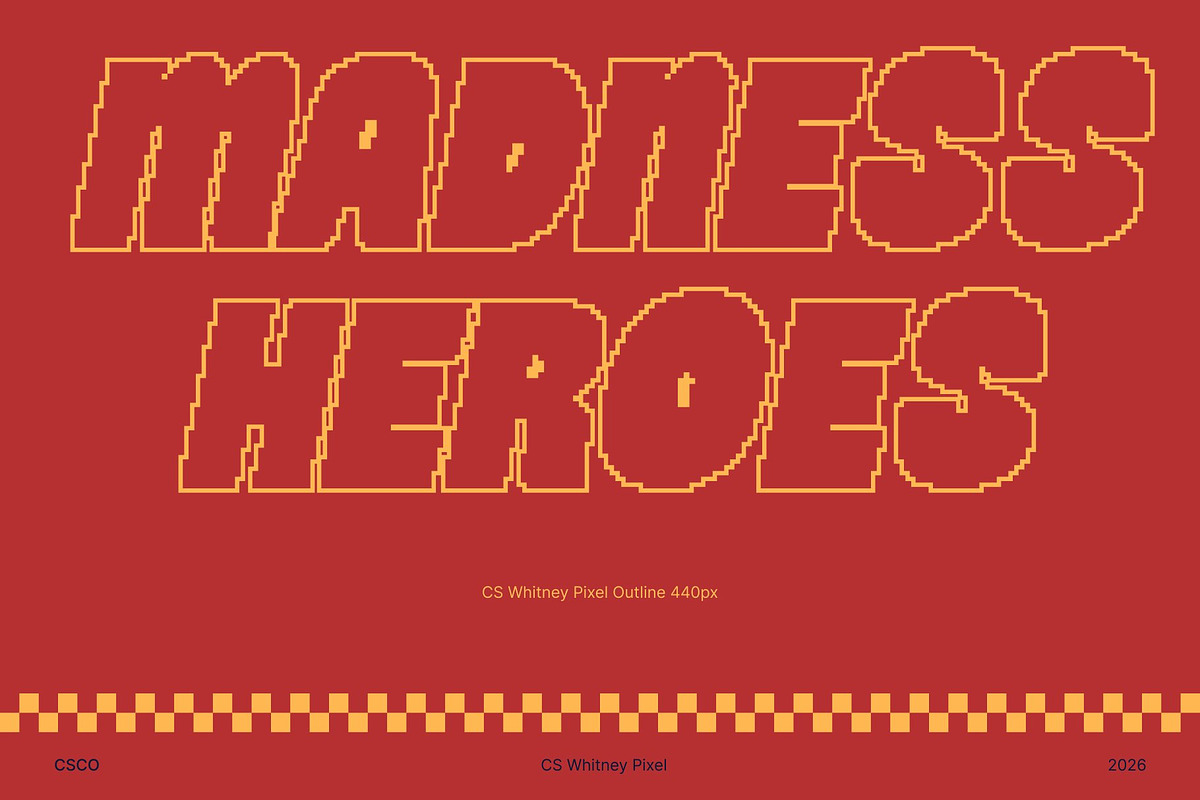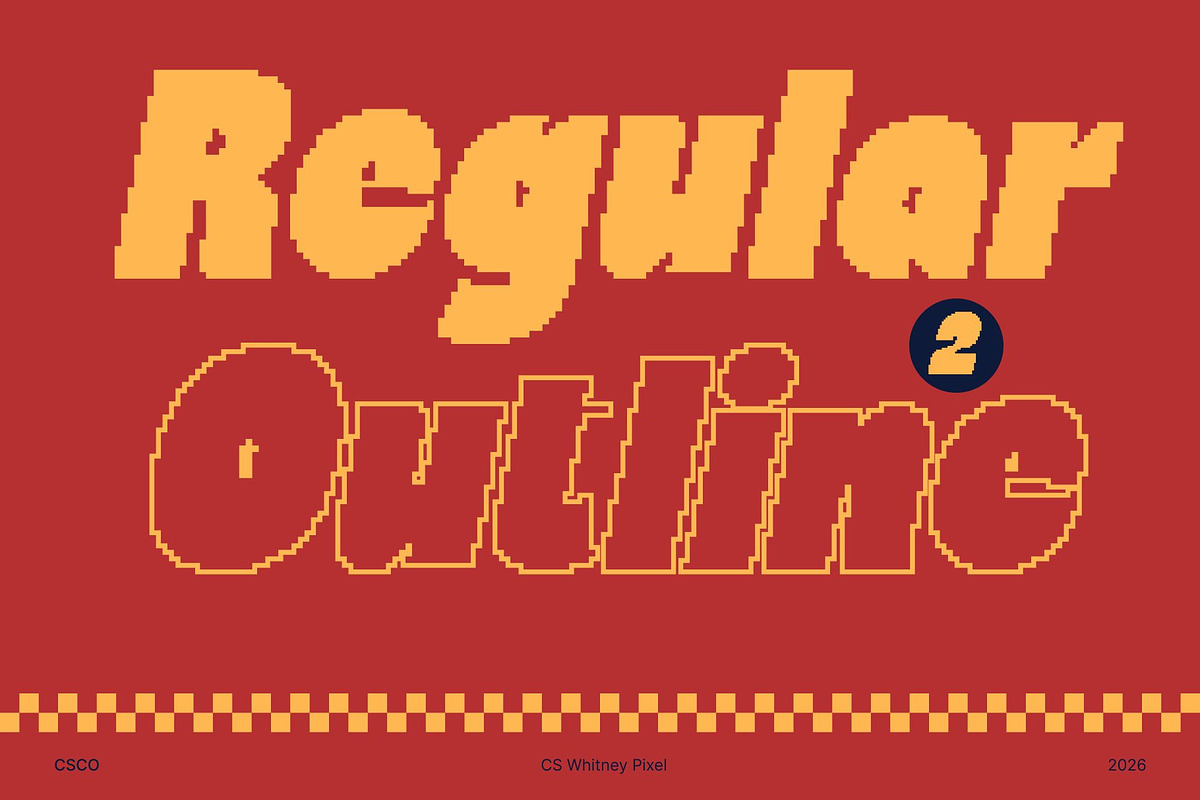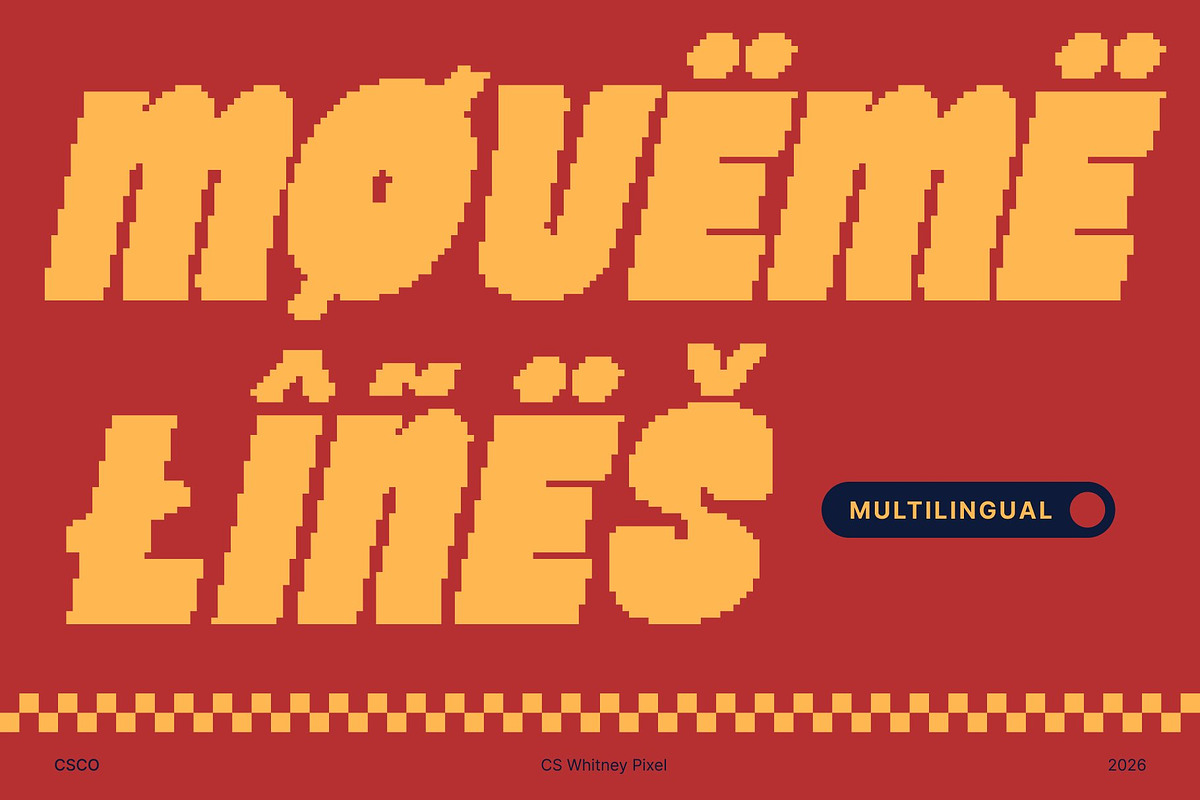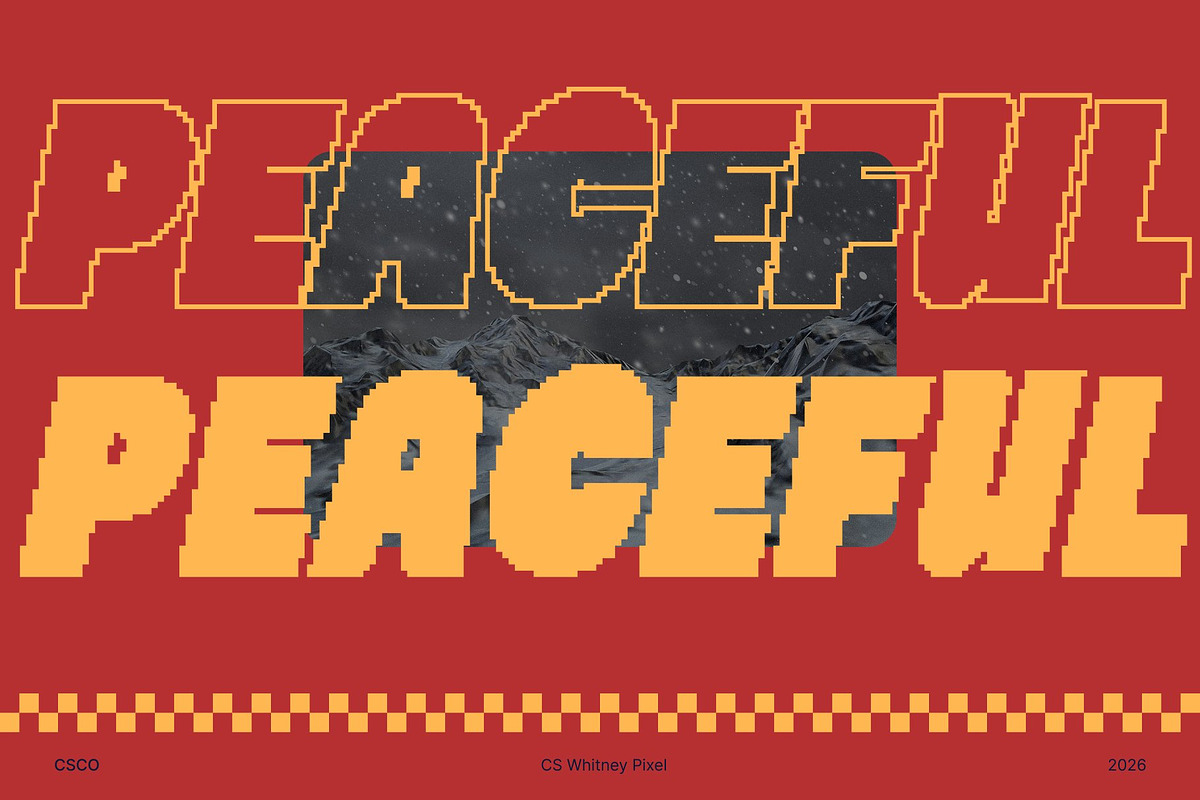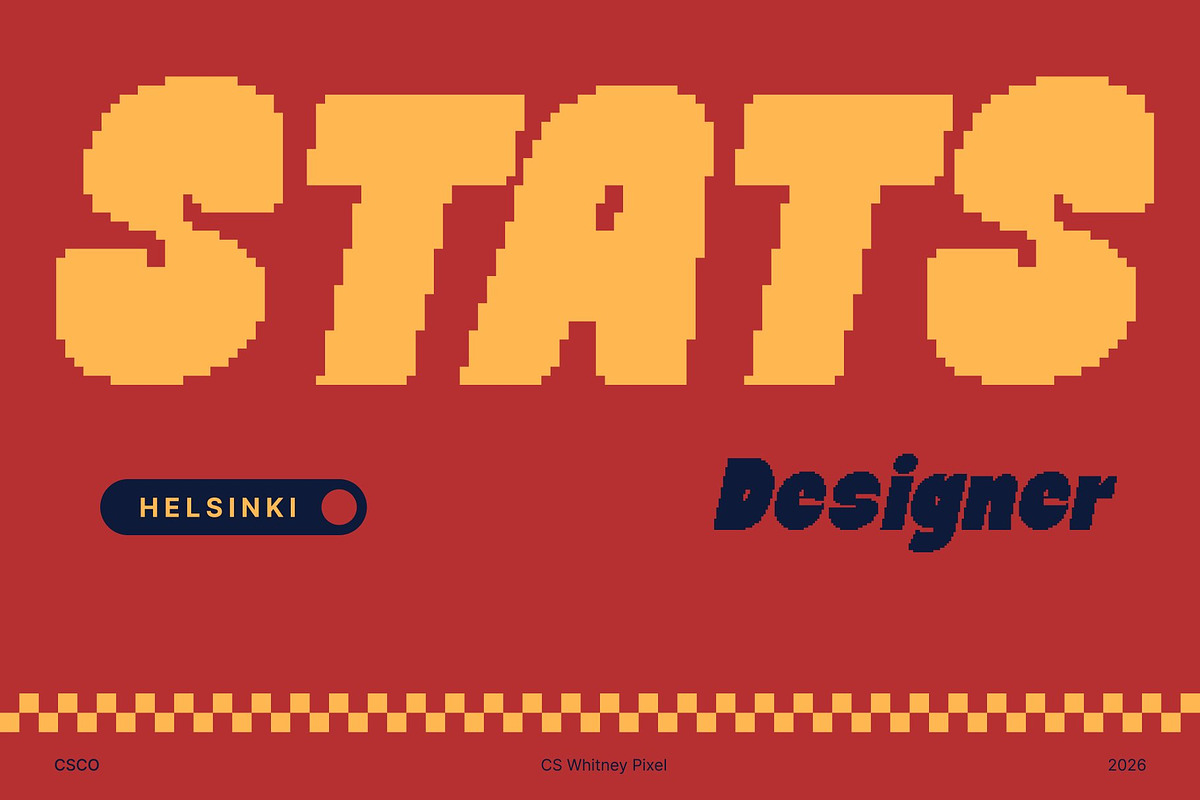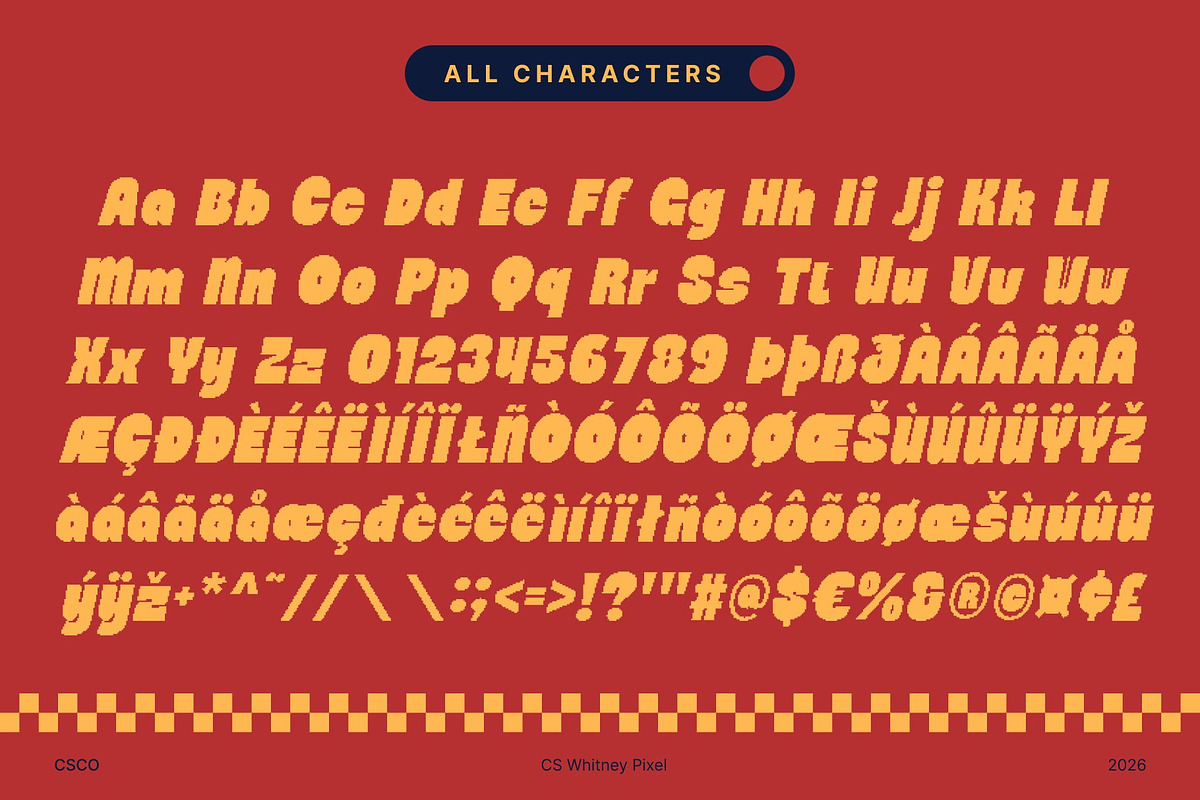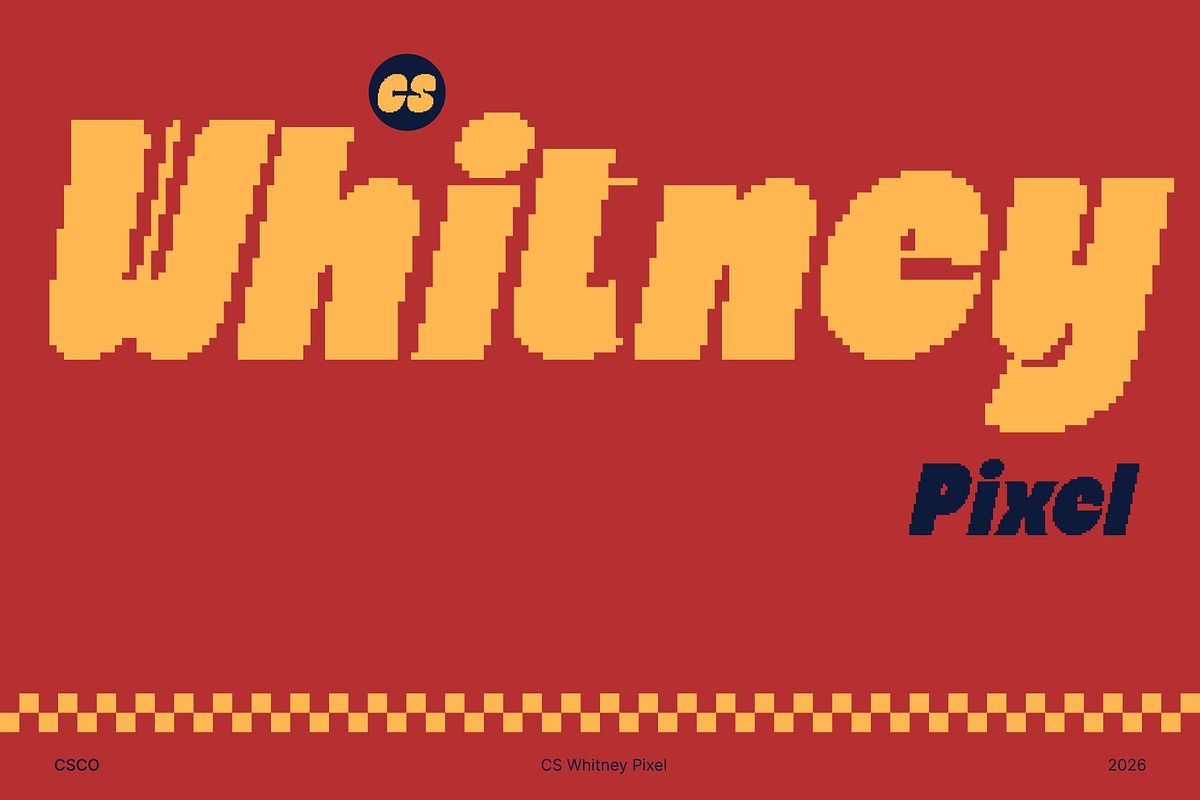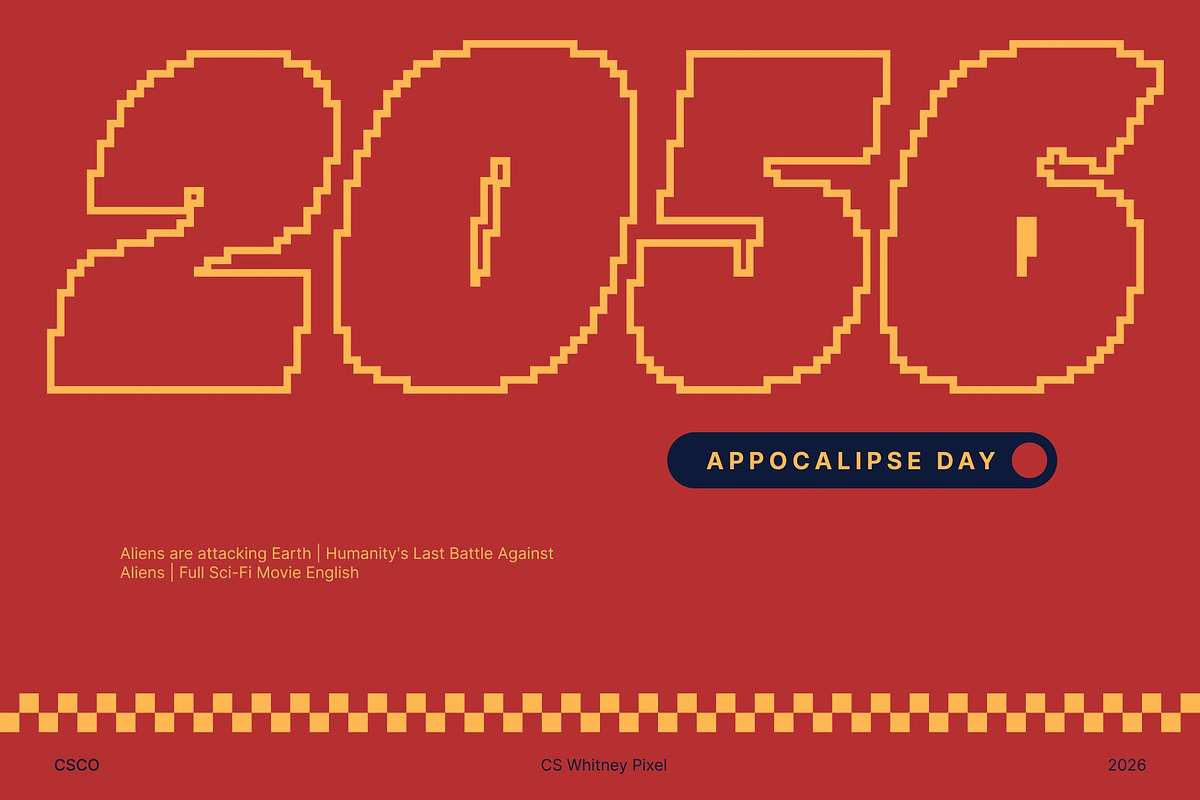
CS Whitney Pixel
CS Whitney Pixel – Bold Impact Meets Playful Charm
Chunky Display Sans Serif with Pixel Edge This is a bold, chunky display sans serif that blends strong blocky construction with subtle pixel-inspired detailing. Its confident letterforms project modern strength, while digital pixel accents introduce a playful twist that makes each character feel distinctive and energetic.
Thick Strokes for Maximum Visual Power Built with thick strokes and solid geometry, this font commands attention instantly. The sturdy structure ensures high visibility in headlines, posters, packaging, and digital banners. The added pixel nuances give it a contemporary, tech-tinged personality without compromising its bold clarity.
Playful Details with Structured Confidence Quirky pixel touches soften the heavy forms, creating a balance between power and friendliness. This contrast allows the font to feel expressive and creative while maintaining a clean, impactful presence. It’s perfect for branding, social media visuals, merchandise, and promotional materials that need to stand out confidently.
Versatile for Modern, Youthful, and Digital Design From energetic campaigns to modern branding projects, this font adapts effortlessly across print and digital media. Its combination of chunky strength and pixel charm makes it a dynamic choice for designers seeking bold typography with character and a contemporary digital vibe.